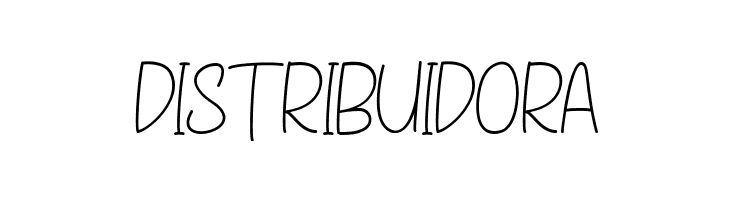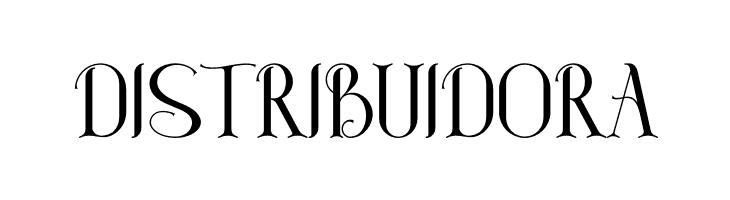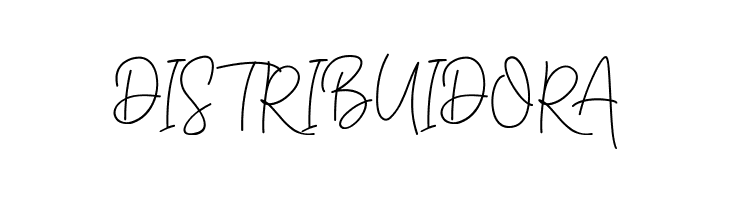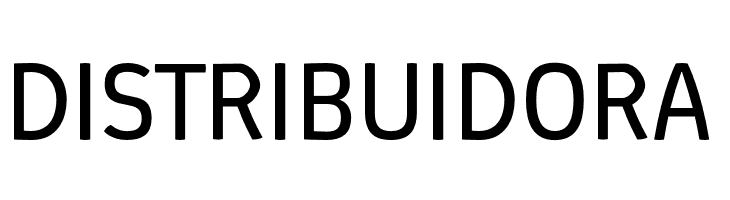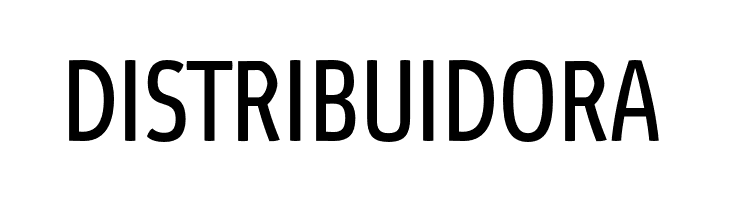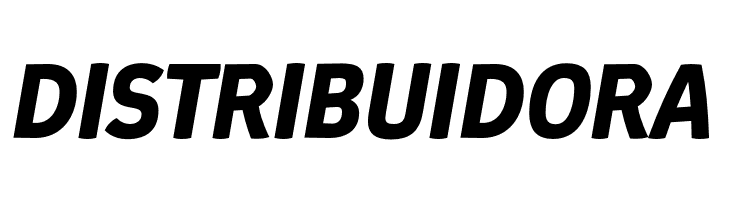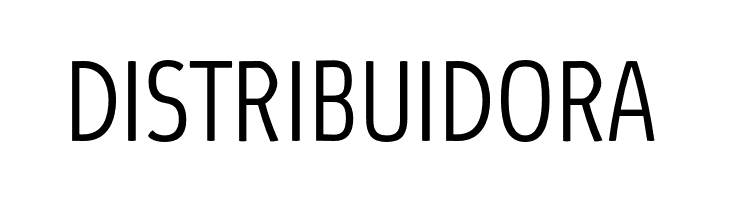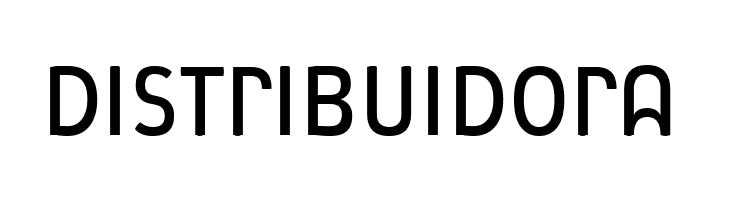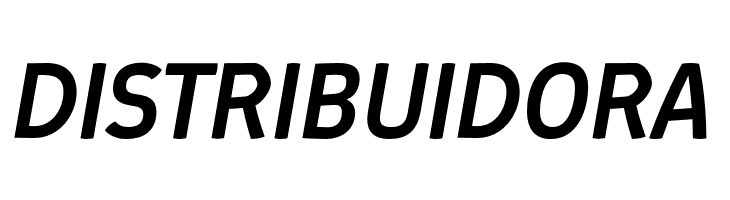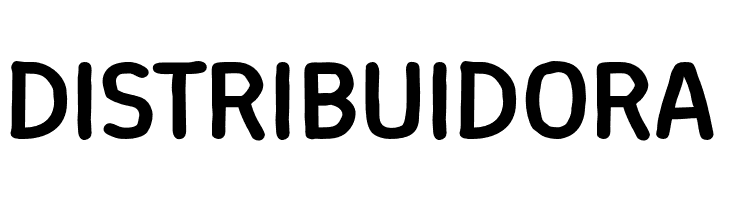
• Absolut Unicase Reduced Bold
A bold, modern unicase font with geometric shapes and rounded edges.
• Absolut Unicase Reduced Book
A modern, geometric unicase font with clean, rounded characters.
• AbsolutCondensedRed-Bold
A bold, condensed font with a modern and impactful style.
• AbsolutCondensedRed-Book
A modern, condensed font with clean lines and geometric shapes.
• AbsolutCondensedRed-Light
A modern, condensed sans-serif font with a clean and minimalistic design.
• AbsolutCondensedRed-Medium
A modern, condensed font with clean lines and a bold presence.
• AbsolutCondensedRed-Thin
A sleek, modern, and condensed font with thin, uniform strokes.
• Absolute
A dynamic and elegant script font with flowing, cursive letterforms.
• Absolute
An elegant, flowing script font with decorative flourishes.
• Absolute - Demo
Elegant and modern font with high contrast and elongated serifs.
• Absolute - Demo
An elegant and artistic font with flowing, decorative letterforms.
• Absolute Inky
• Absolute Nature
A whimsical and flowing handwritten font with elegant, elongated letterforms.
• AbsoluteImprovisations
An abstract, doodle-like font with unique, artistic characters.
• AbsoluteInvite
A cursive, handwritten font with elegant, flowing strokes.
• AbsoluteMoney
Expressive handwritten font with fluid, cursive strokes.
• Absolution
A playful, handwritten font with tall, narrow letters and a casual style.
• AbsolutRed-Black
A bold, rounded font with a modern and impactful style.
• AbsolutRed-BlackItalic
Bold, italicized font with a strong, modern presence.
• AbsolutRed-Bold
A bold, modern font with rounded edges and consistent stroke width.
• AbsolutRed-BoldItalic
A bold, italic font with smooth curves and a dynamic style.